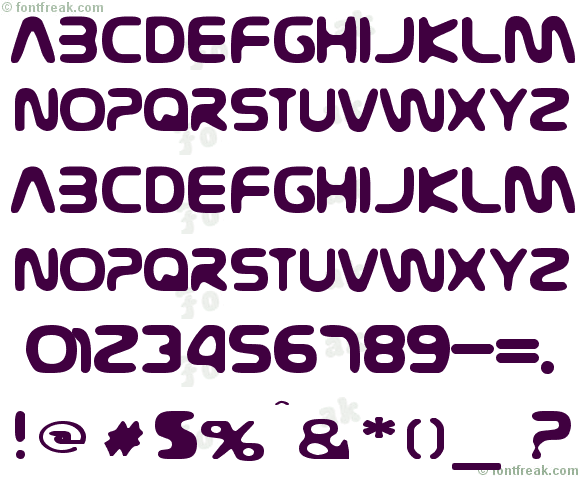
Nasal
About Nasal
The Nasal font, created by Ray Larabie in 1997, is a distinctive display typeface that captures attention with its unique character. This font stands out as a decorative typeface, showcasing bold, rounded letterforms that convey a sense of playfulness and modernity. Its stroke weight is consistent, while the lack of sharp contrast in thickness gives it a smooth, approachable appearance. The spacing between letters is expertly balanced, allowing for clear legibility even in larger text sizes, which enhances its visual appeal.
Nasal is particularly well-suited for a variety of creative applications. It makes a striking choice for movie posters, where its bold presence can draw viewers in. Additionally, this font shines on restaurant menus, adding a fun twist to the dining experience. It's also an excellent option for branding materials, such as logos or promotional graphics, where a memorable impact is essential. For graphic designers and content creators looking to add a whimsical touch to their projects, Nasal font free download offers an accessible way to incorporate this dynamic typeface into their toolkit.
The target audience for the Nasal font includes graphic designers, small business owners, and anyone in the creative industry seeking a unique typeface that stands out. Its versatility means it can be adapted for various projects, from casual to more formal, depending on how it's utilized.
What sets the Nasal font apart is its combination of boldness and charm. It offers a fresh approach to typography that can elevate any design. With its distinct style and free licensing, it is an invaluable resource for those looking to make a memorable impression with their written content.